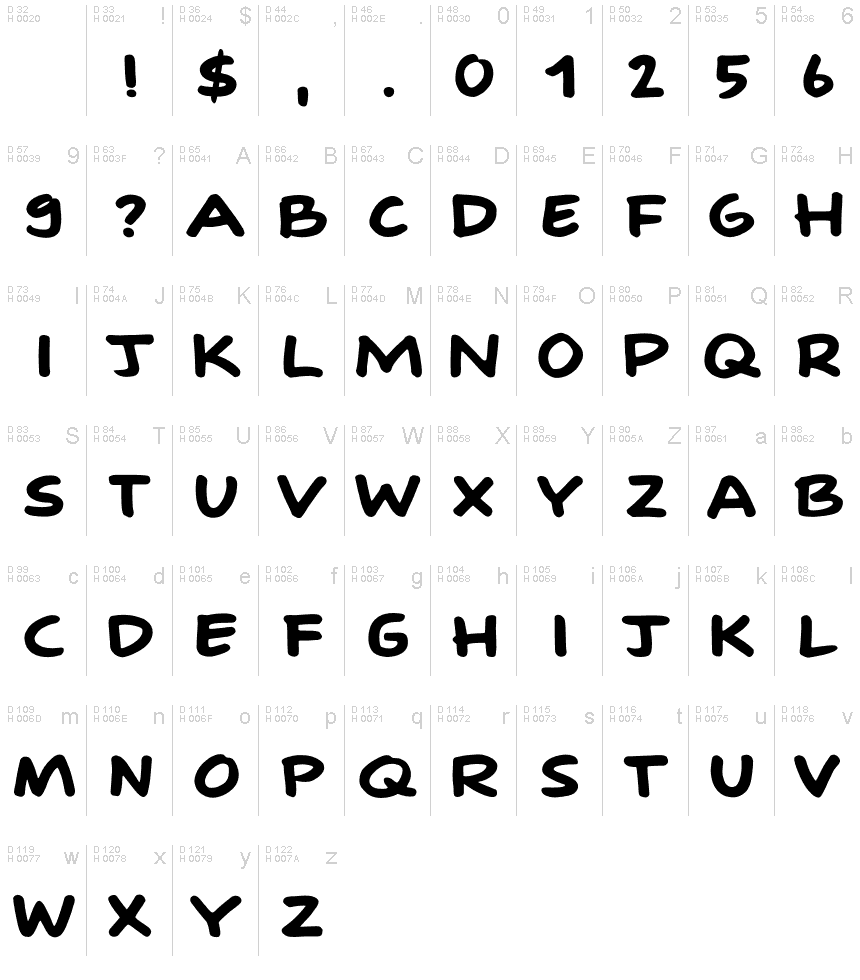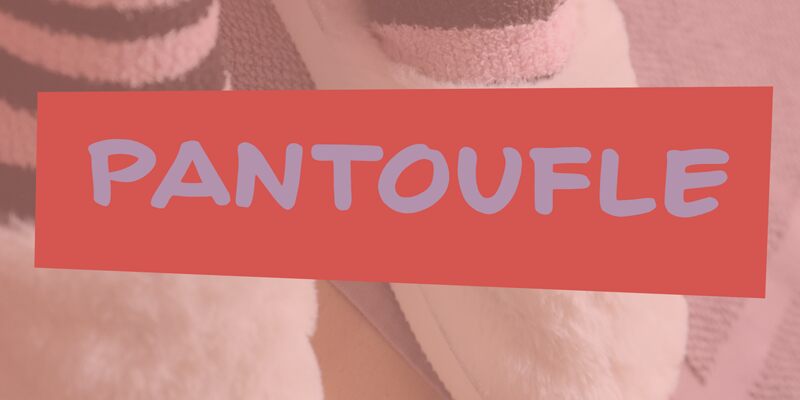
Pantoufle DEMO Regular
Pantoufle, designed by D K, is a playful and bold display font that invites creativity and adds a touch of whimsy to any project. Its comic style exudes an informal charm, perfect for engaging audiences in less formal contexts. With its expanded width and hefty weight, Pantoufle stands out on the page or screen with confidence.
The font's rounded edges and varying stroke widths give it a friendly and approachable aesthetic. These features make it an excellent choice for children's books, casual game interfaces, or any design looking to convey a sense of fun without sacrificing readability.
Whether it graces the cover of an invitation or headlines for an event poster, Pantoufle's unique character ensures that your message is delivered with personality and impact. The visual appeal of this font lies in its ability to balance robustness with playfulness—making it as versatile as it is delightful.